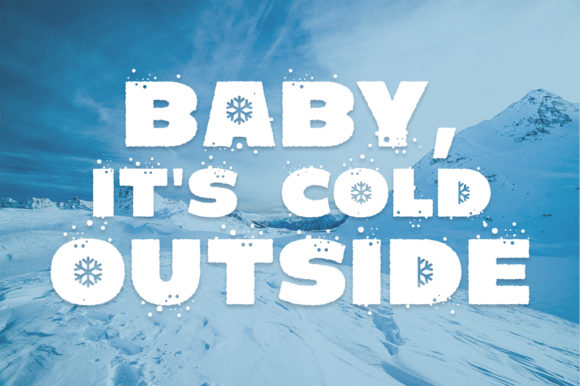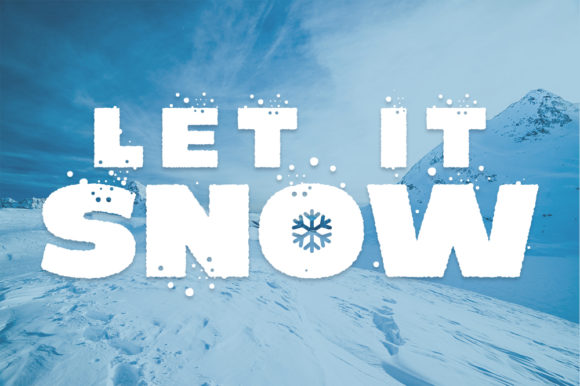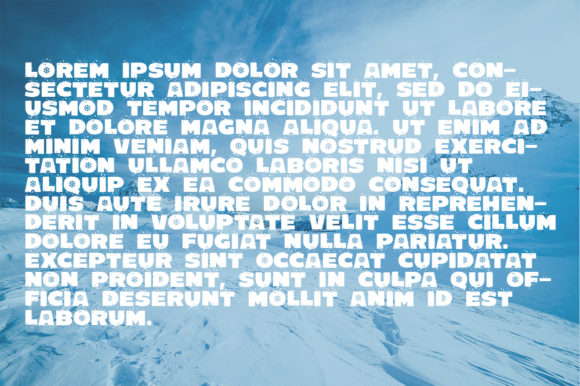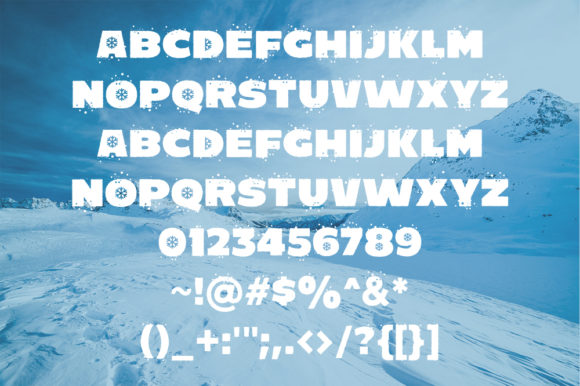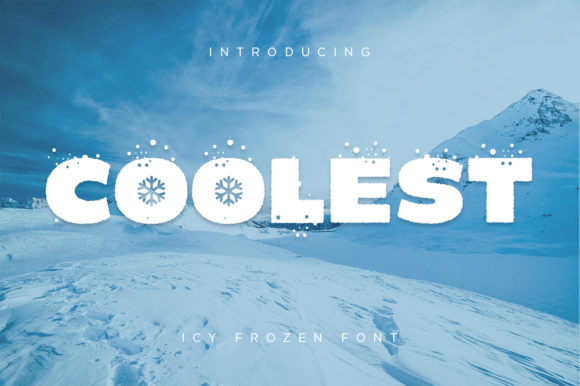
The Coolest Font: Adding a Touch of Winter Wonder to Your Designs
As the winter season approaches, designers and crafters are on the lookout for inspiration to create stunning and seasonal designs. If you’re looking to add a touch of icy elegance to your projects, look no further than the Coolest Font. This winter-themed display font is designed to bring a snowy feel to any design, and its unique details are sure to leave a lasting impression.
What Makes Coolest Font So Special?
Coolest is an icy and winter-themed display font that is perfect for a wide range of designs, from holiday cards and posters to social media graphics and branding materials. Its unique winter details, such as snowflakes and frosty textures, add a level of depth and visual interest to any design. Whether you’re looking to create a bold and eye-catching headline or a delicate and intricate design, Coolest Font has got you covered.
Key Features of Coolest Font
- Winter-themed design: Coolest Font features a unique winter-themed design that is perfect for seasonal designs and projects.
- Icy and frosty details: The font includes intricate icy and frosty details, such as snowflakes and frosty textures, to add a touch of winter wonder to your designs.
- Display font: Coolest Font is a display font, making it perfect for headlines, titles, and other prominent design elements.
- Versatile: The font is versatile and can be used in a wide range of designs, from digital to print.
How to Use Coolest Font in Your Designs
- Pair with a simple background: Let the font be the star of the show by pairing it with a simple background that won’t compete with the intricate details.
- Experiment with colors: Try pairing the font with a range of colors, from icy blues and whites to rich berry tones, to create a unique and eye-catching design.
- Add winter-themed graphics: Take your design to the next level by adding winter-themed graphics, such as snowflakes or pinecones, to complement the font.
Inspiration for Your Designs
- Holiday cards: Use Coolest Font to create stunning holiday cards that will stand out in a crowded mailbox.
- Winter-themed posters: Create eye-catching posters that showcase the beauty of winter, from snow-covered landscapes to cozy coffee shops.
- Social media graphics: Add a touch of winter wonder to your social media graphics, from Facebook posts to Instagram stories.
- Branding materials: Use Coolest Font to create unique and memorable branding materials, such as business cards and letterheads.
Coolest Font is a unique and versatile winter-themed display font that is perfect for designers and crafters looking to add a touch of icy elegance to their designs. With its intricate details and frosty textures, this font is sure to leave a lasting impression. Whether you’re creating holiday cards, posters, social media graphics, or branding materials, Coolest Font is the perfect choice. So why wait? Get inspired by the Coolest Font and add a snowy feel to your designs today!